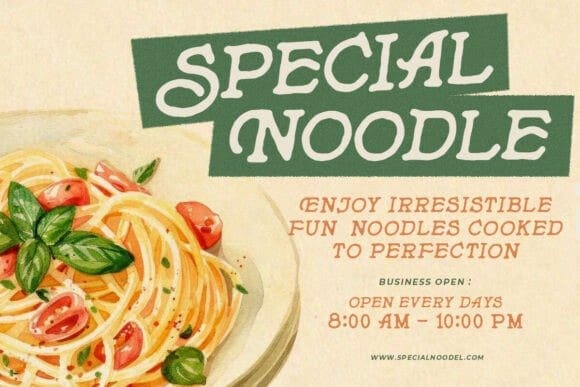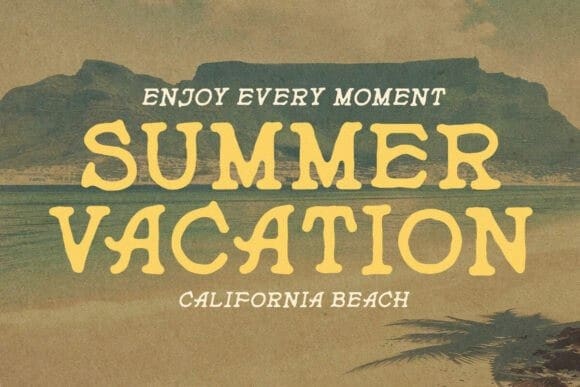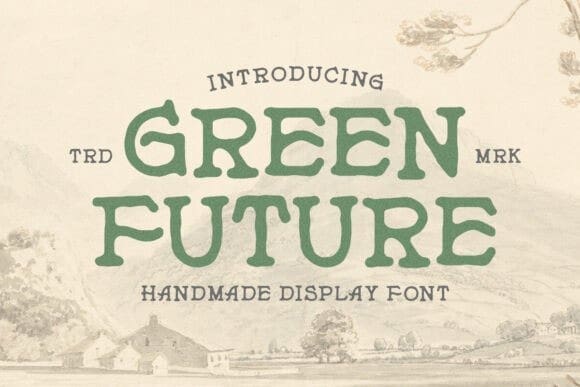
Green Future Font
Green Future Font is a charming, vintage-inspired sans serif font with a warm, organic feel. Its handcrafted style brings a touch of nostalgia while maintaining a fresh and timeless aesthetic. Perfect for branding, packaging, posters, book covers, and eco-friendly projects, this font exudes a natural, rustic vibe that blends tradition with modern design.